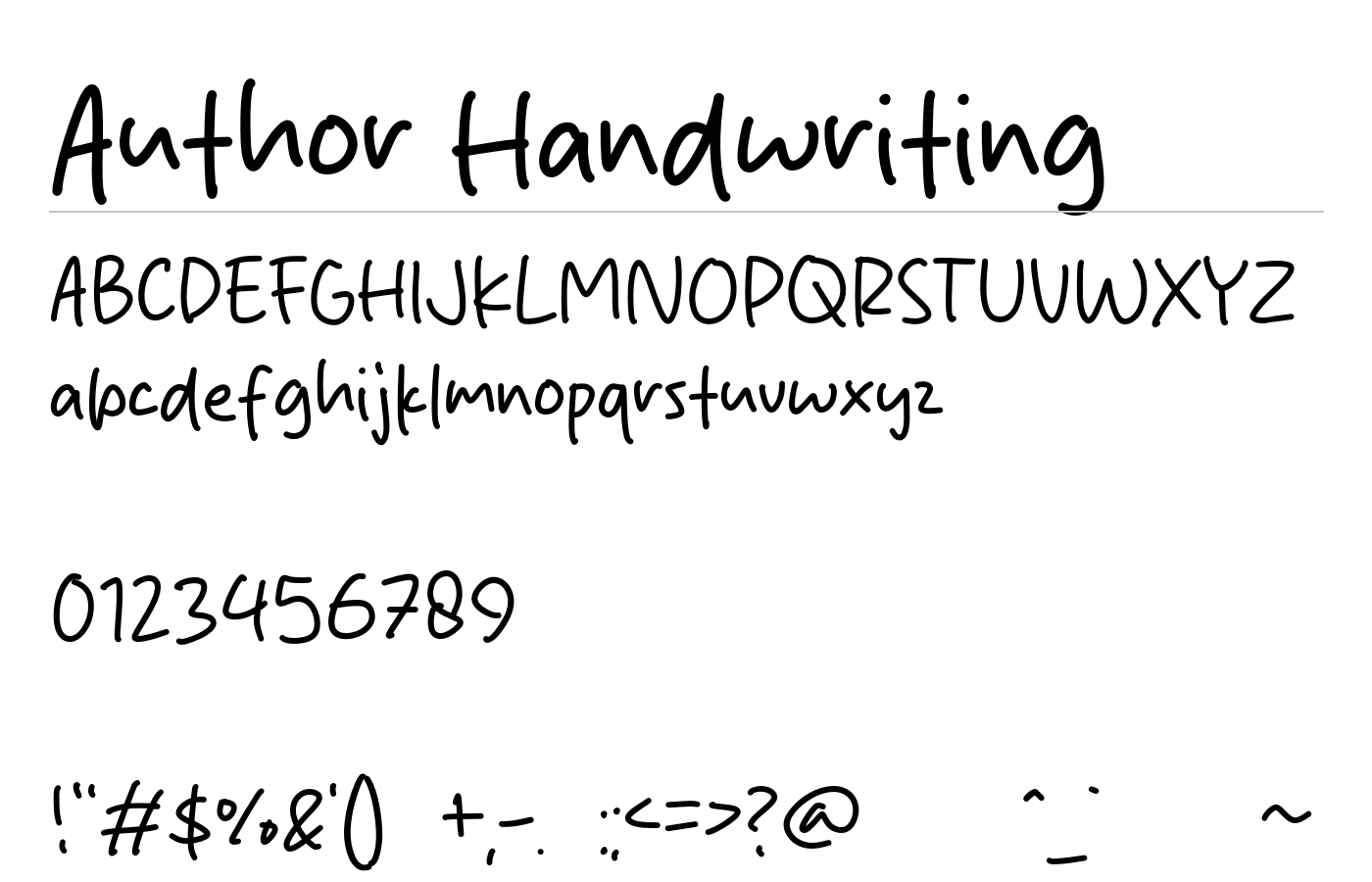
Author Handwriting Font is a casual and friendly handwritten typeface with a natural, slightly playful feel. Its clean, smooth strokes and moderate x-height make it highly legible while retaining a personal, informal touch, perfect for adding warmth and approachability to designs. This font works well for personal branding, casual editorial use, and creative projects where a human, authentic voice is desired.
Author Handwriting Font
About Author Handwriting Font
| Font family | Author Handwriting Font |